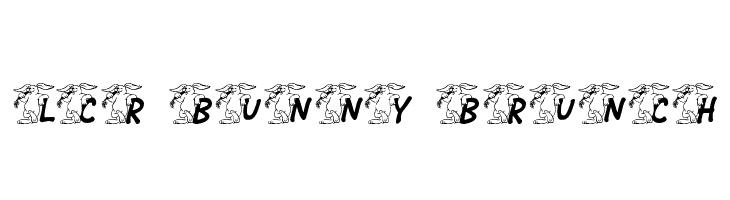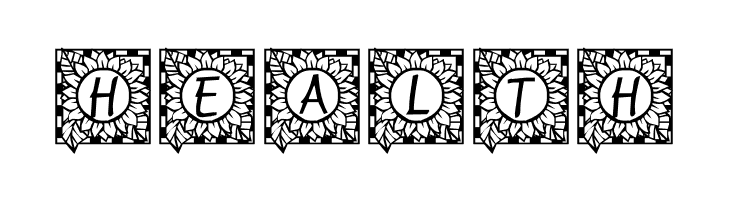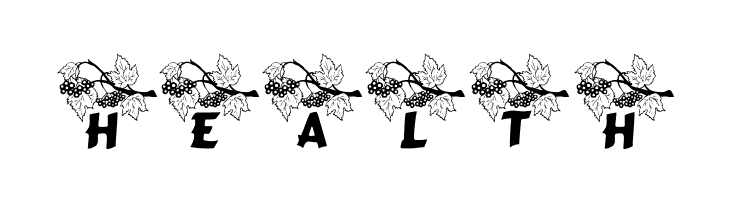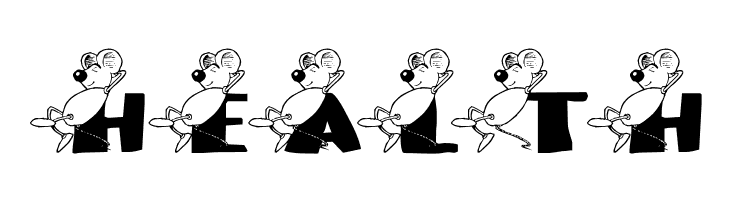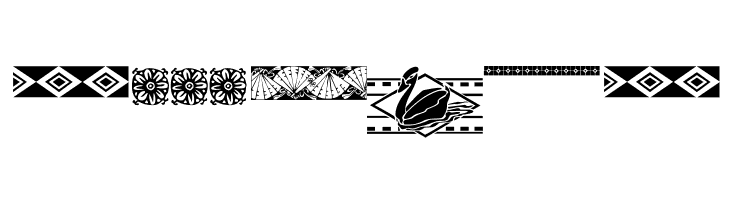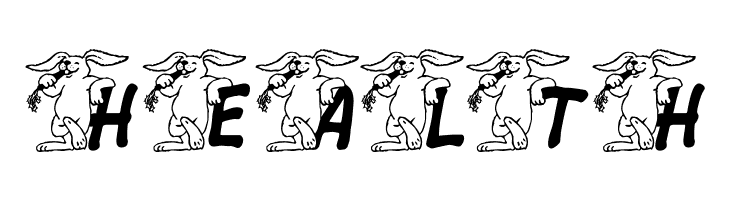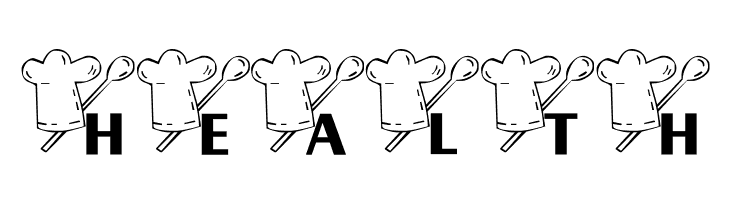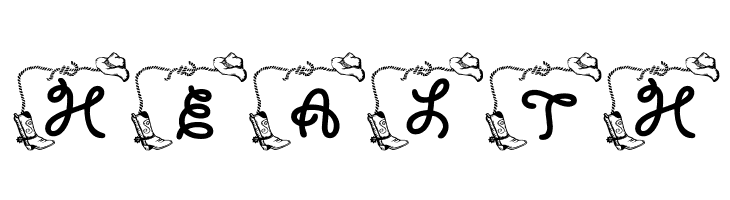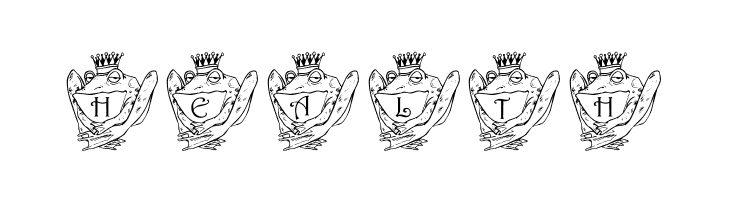
A decorative font with characters encased in sunflower-themed borders.
A decorative font with autumn foliage embellishments on each character.
A playful font with bold letters and cartoon mouse illustrations.
A decorative border and dingbat set with assorted intricate motifs.
A whimsical font with bold letters and playful bunny illustrations.
A whimsical decorative font featuring sleeping cat illustrations with each character.
A playful font with chef-themed decorations on each character.
A decorative Western-themed font with cowboy motifs and rope details.
A whimsical, modular font for assembling cartoon faces.
A whimsical, decorative font with characters encased in crowned frog illustrations.